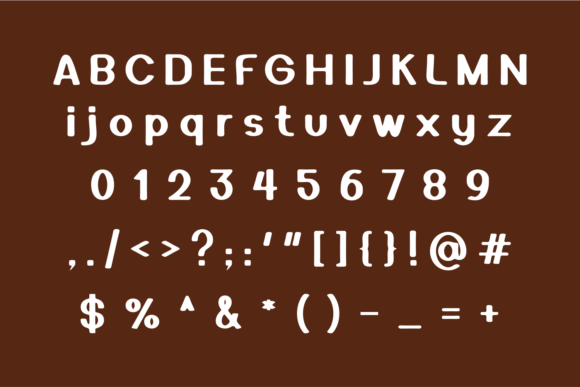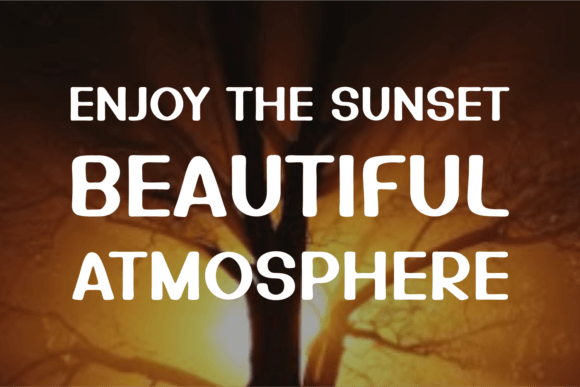
Introduction to Protgas Font
Have you ever found yourself stuck on a creative project, desperately searching for the perfect font to bring your vision to life? You’ve browsed through countless options, but none seem to capture the essence of your design. This is where the Protgas Font comes in – a game-changing, high-quality sans serif font designed to elevate your creative projects to the next level.
With its smooth, balanced, and varied design, the Protgas Font is the perfect resource for designers looking to add a touch of sophistication to their work. Whether you’re working on a project with a transparent background or need a font that can hold its own on a busy design, the Protgas Font is an invaluable asset in your design toolkit.
Key Features of Protgas Font
- Unique, modern font with a transparent background, ideal for backgrounds or overlays
Honest Review: Protgas Font
As a designer, I’m always on the lookout for high-quality design resources that can elevate my creative projects. Recently, I came across the Protgas Font, and I’m excited to share my honest review with you.
- ✨ Unique design style that sets it apart from other fonts
- ✨ Clean and legible lines that make it perfect for body text
- ✨ Transparent background, which makes it easy to use on various design backgrounds
However, I do have some concerns:
- ⚠️ Limited font sizes, which might not be suitable for large-scale designs
Overall, I’m impressed with the Protgas Font’s unique design style and clean lines. While it has some limitations, it’s still a valuable resource for designers working on creative projects. I’d definitely recommend it to anyone looking for a high-quality, free font.
Protgas Font
Tips for Getting the Most Out of Protgas Font
Protgas Font is ideal for creative projects that require a unique and professional touch. Use the font for logos, titles, headings, and body text to give your design a high-quality look. You can also use the font for presentations, documents, and other design projects that require a transparent background.